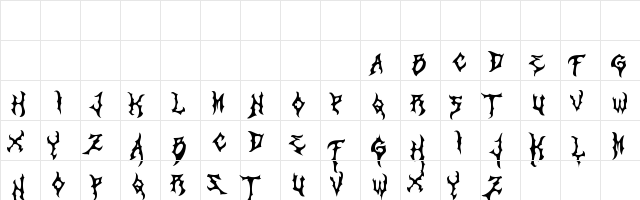
Monumental Regular
| Designer | Lettersiro 2018 |
Design Context for Monumental Typeface
Monumental is a composed and adaptable typeface that performs quietly and consistently across a wide range of design contexts.